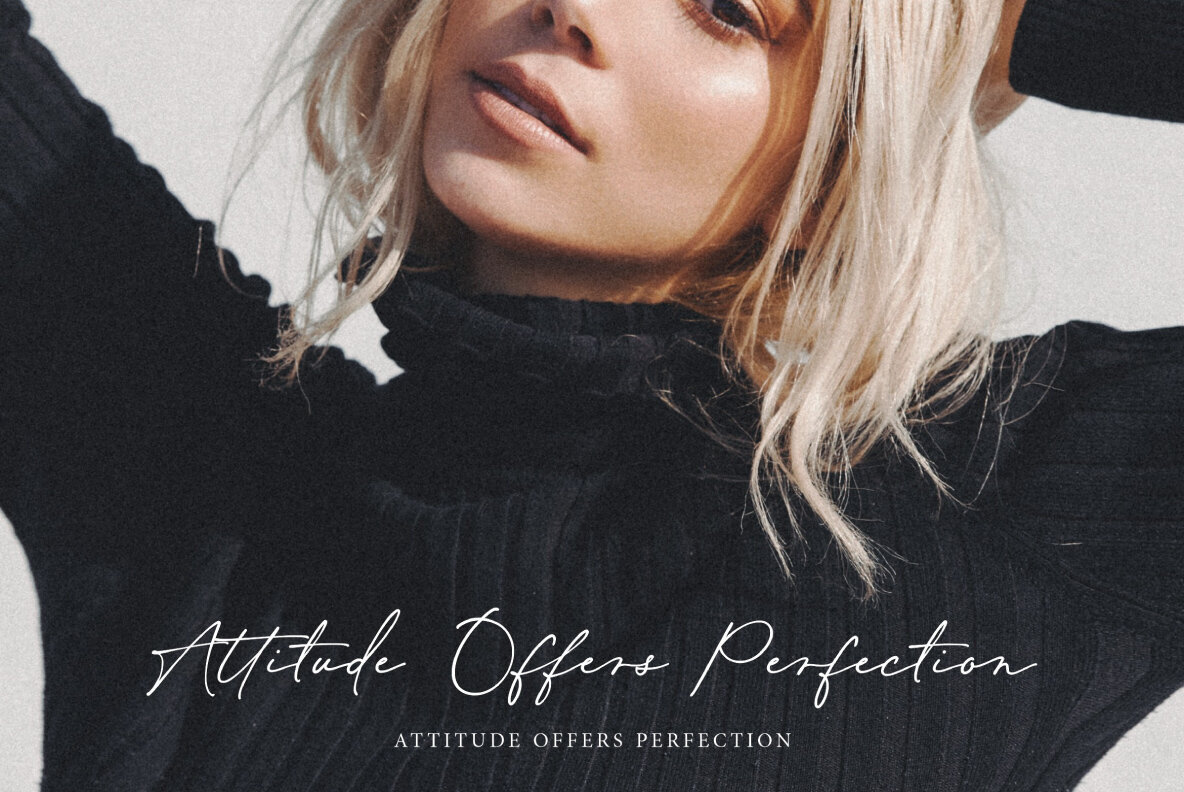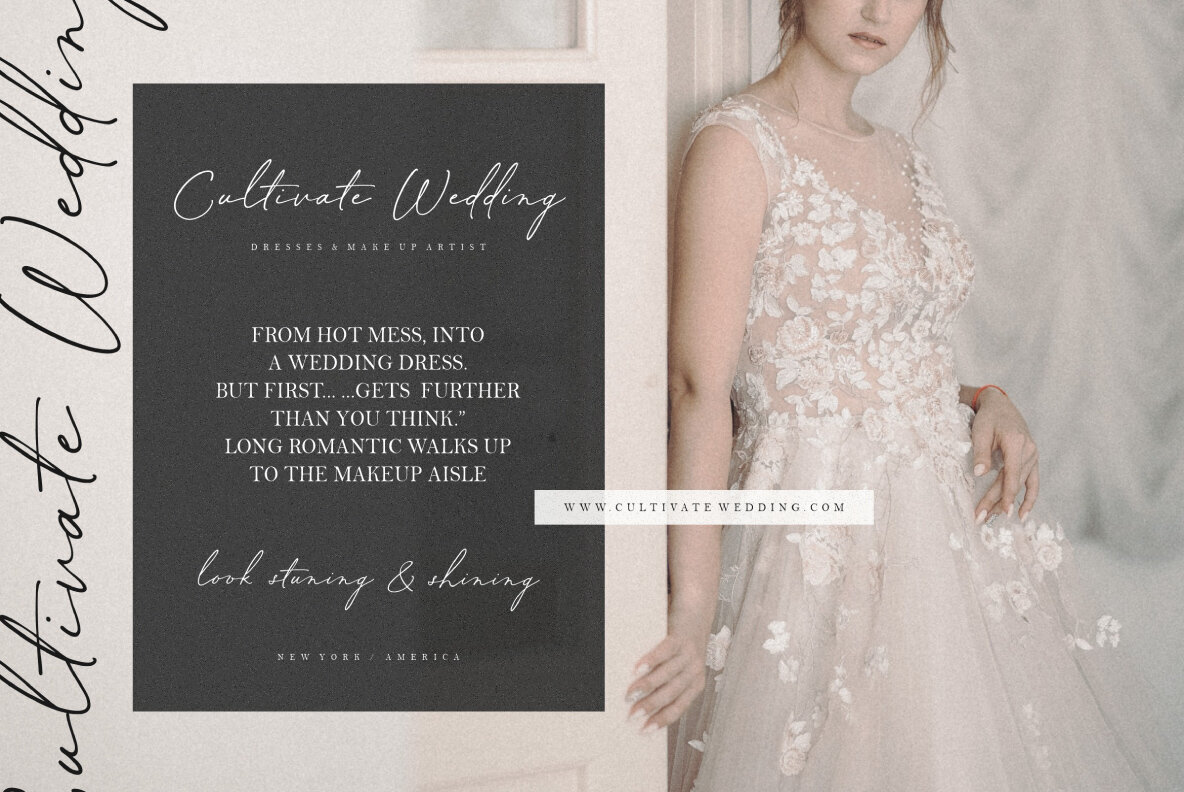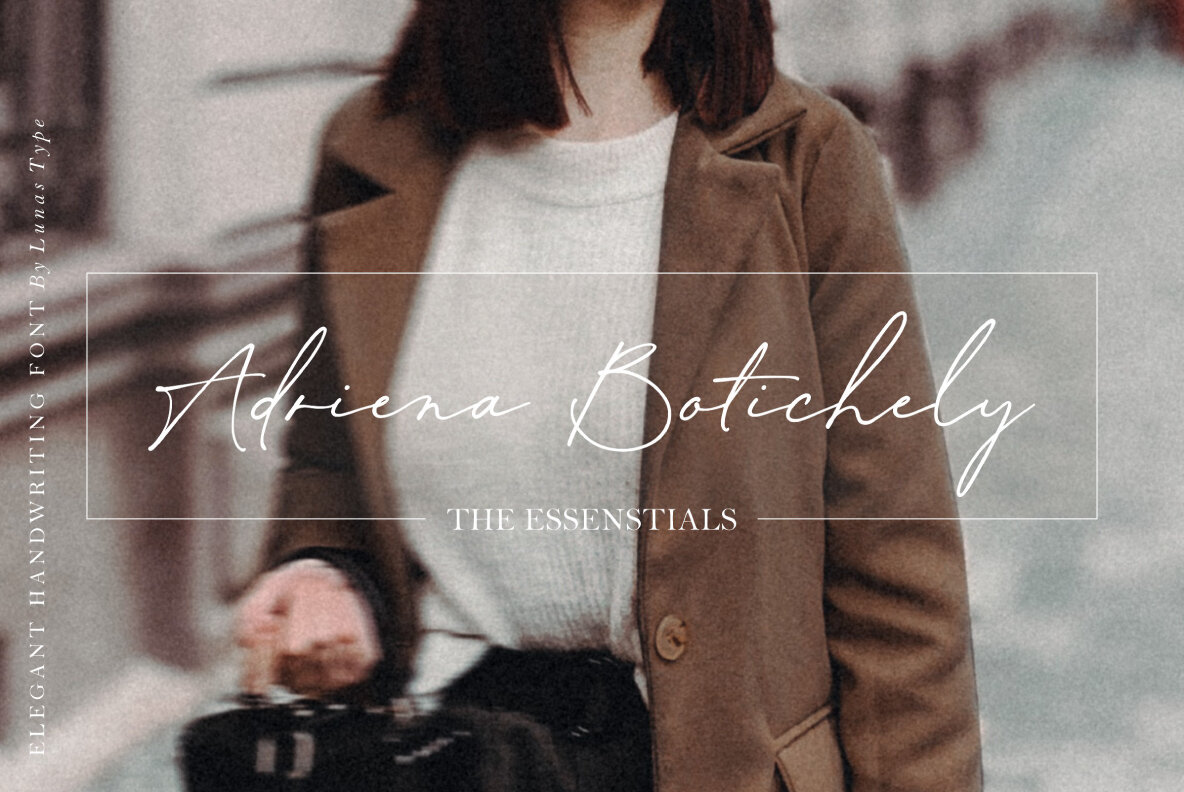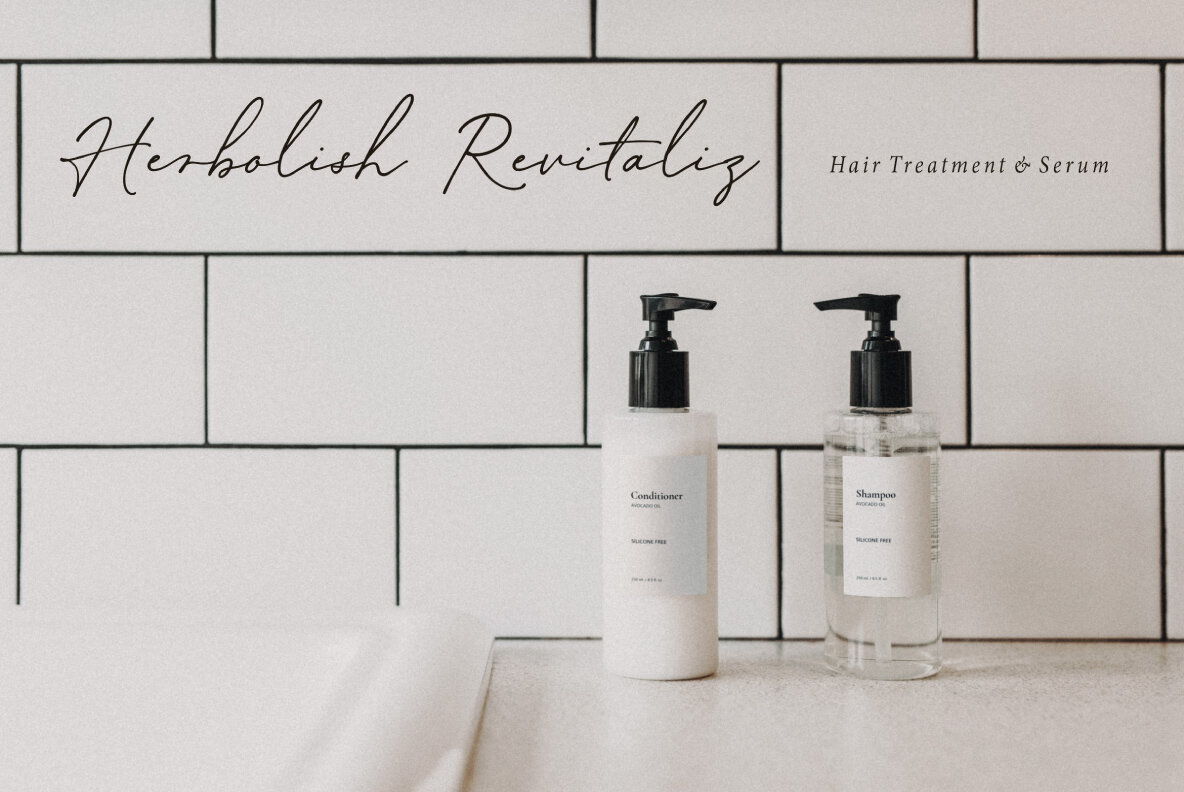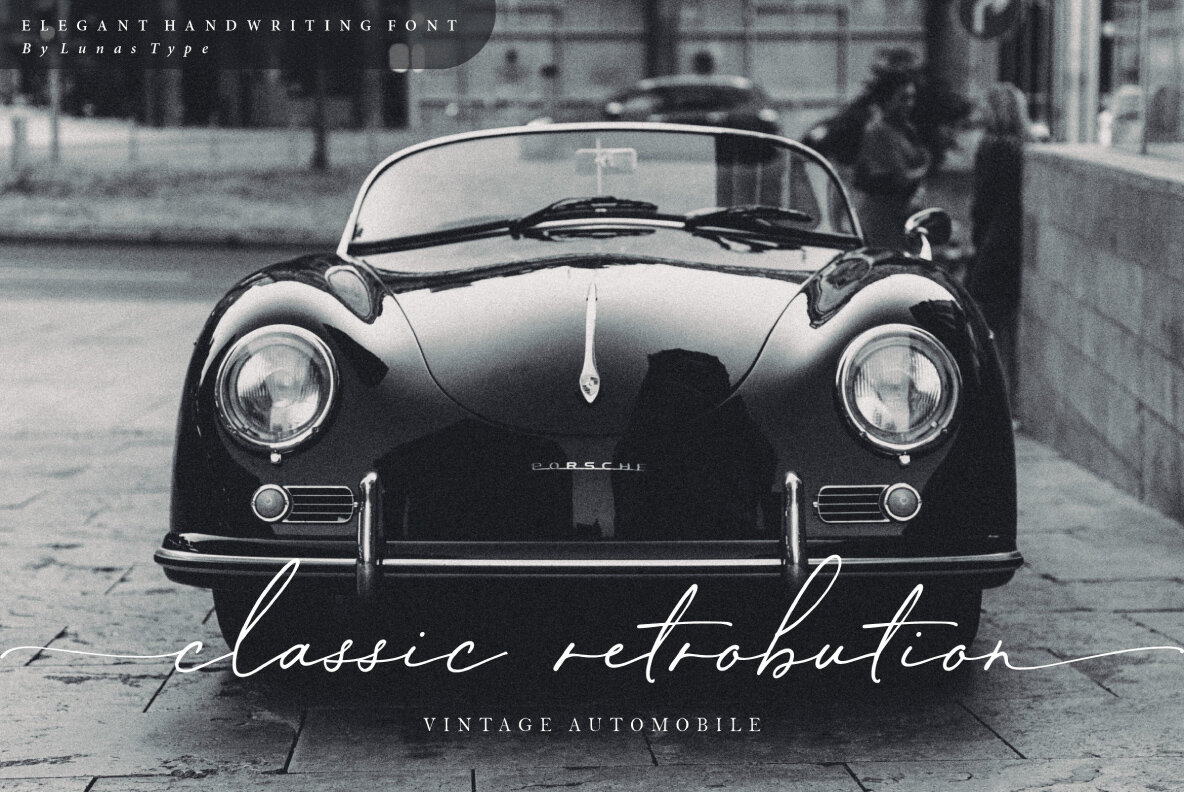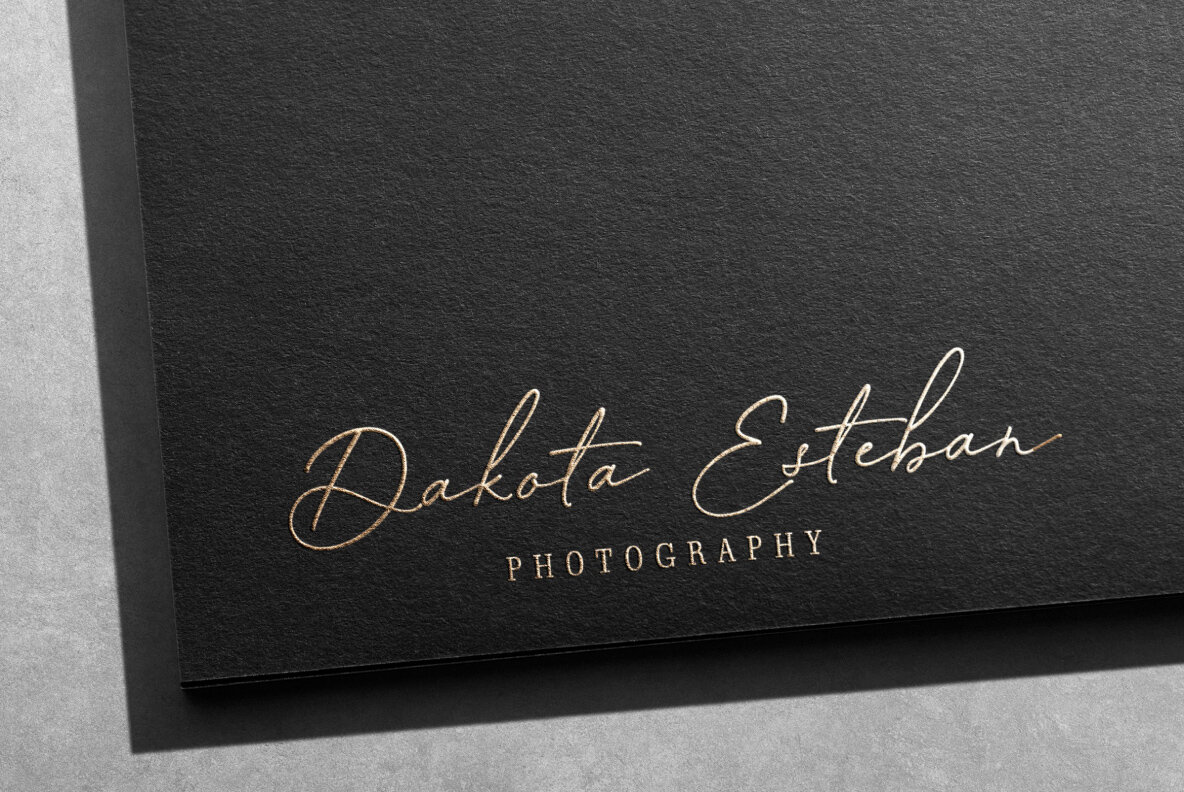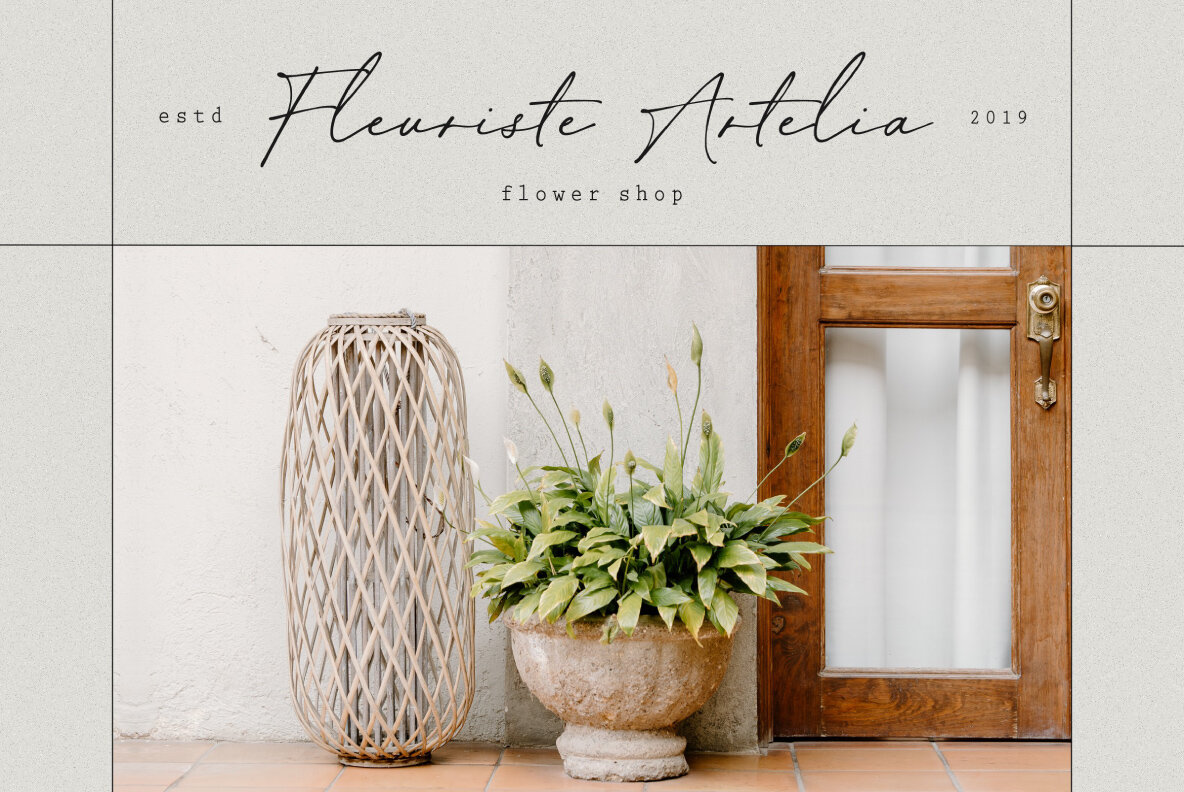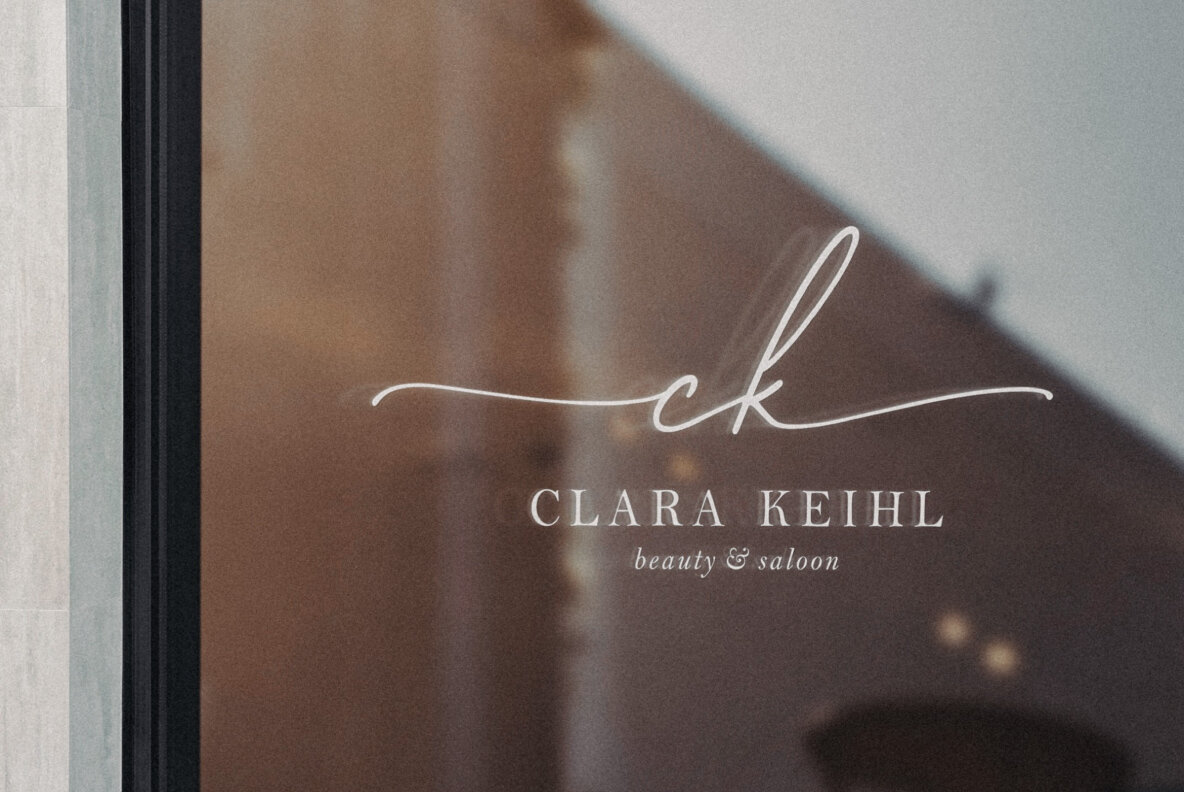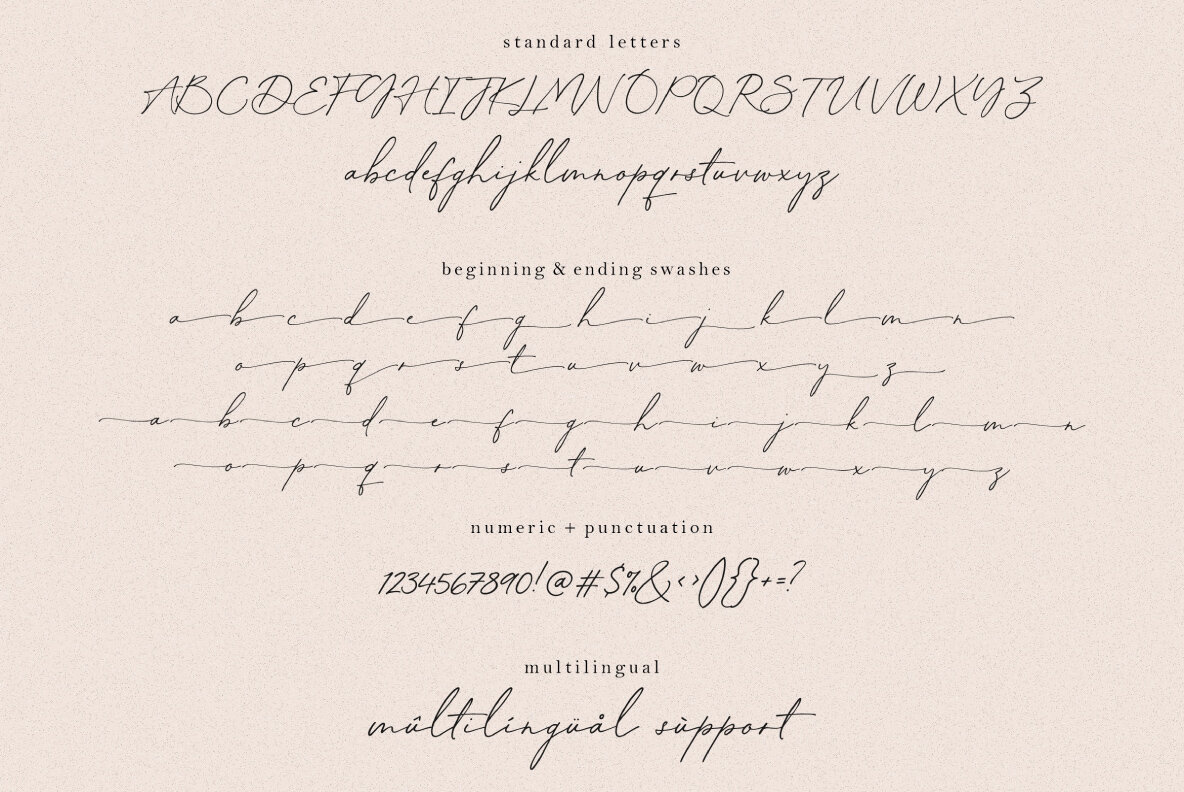
Blooming Heart Font
Blooming Heart Regular
Embodying a natural grace, Blooming Heart captivates through its charming and elegant design. This modern handwritten font complements a broad range of projects with its timeless allure. The sophisticated strokes and stylish features make it an excellent choice for weddings, stationery creations, logos, branding identity, and social media quotes.Blooming Heart: Luxurious Handwritten Elegance